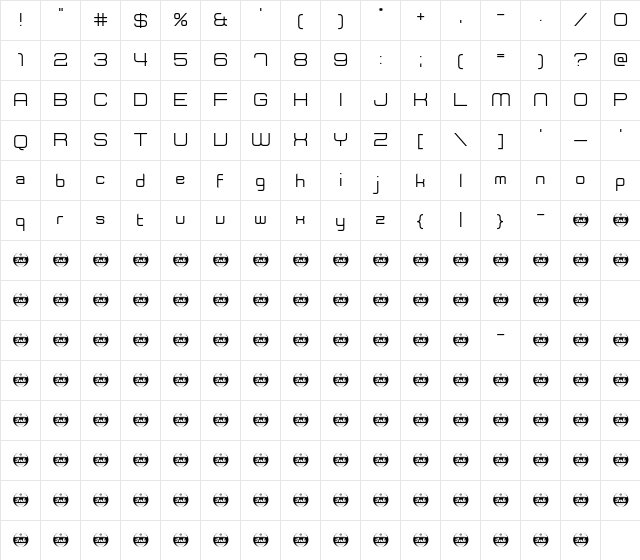
Shepherdy Regular
| Designer | Allison JJ |
Design Context for Shepherdy Typeface
Shepherdy offers clean, dependable letterforms without strong stylistic allegiance, making it a practical choice for designers who need flexibility.